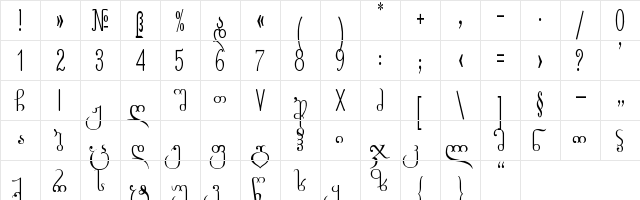
Geo-TabidzeNusx-ASTER Regular Font Preview
Geo-TabidzeNusx-ASTER Regular
Geo-TabidzeNusx-ASTER Regular Font Details
Design Context for Geo-TabidzeNusx-ASTER Typeface
Geo-TabidzeNusx-ASTER takes a measured approach to typography — its balanced proportions and neutral character make it a reliable workhorse for both digital and print work.